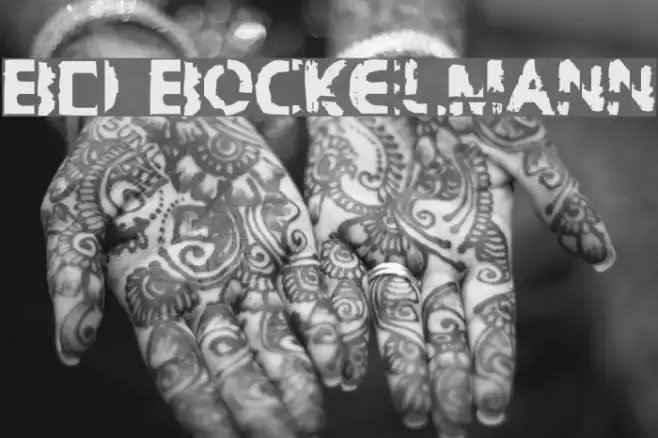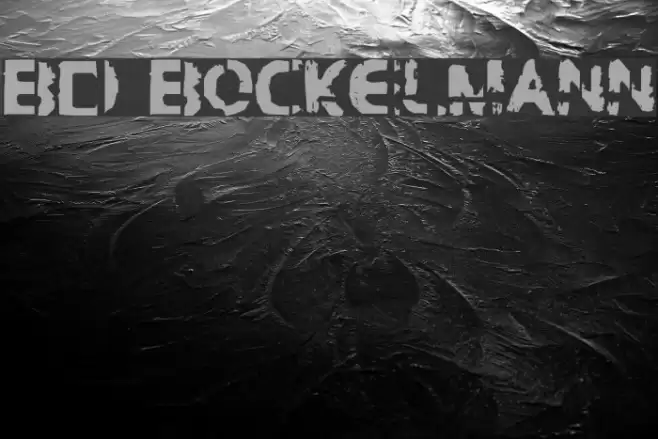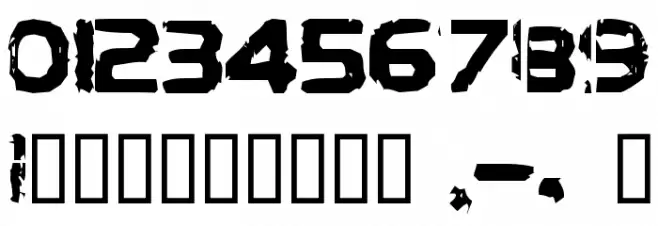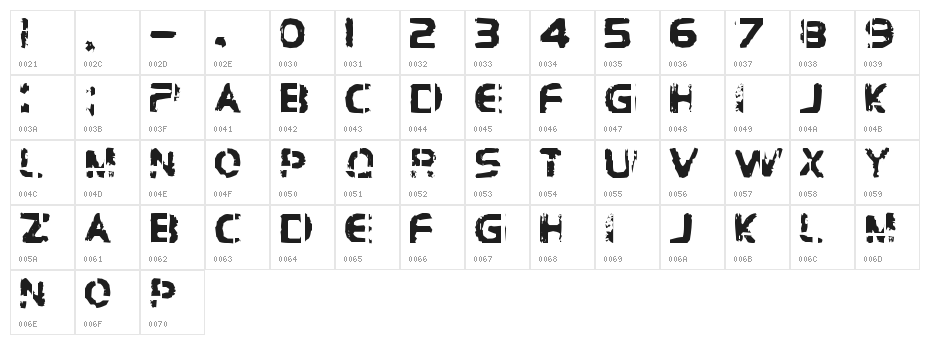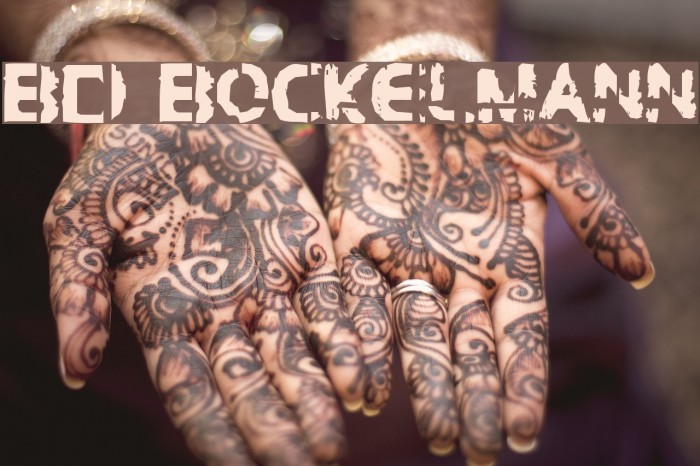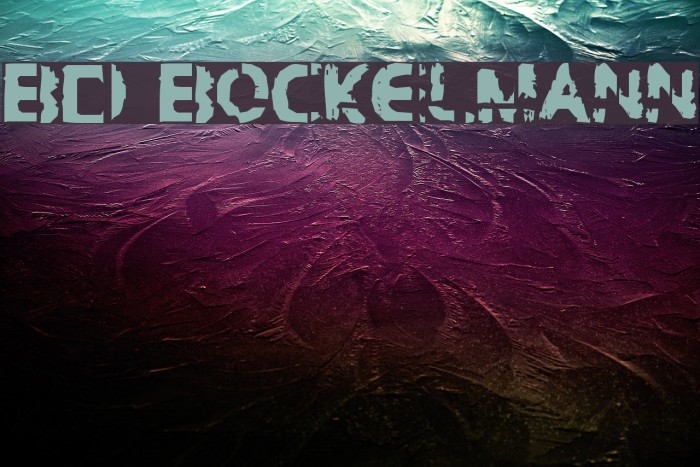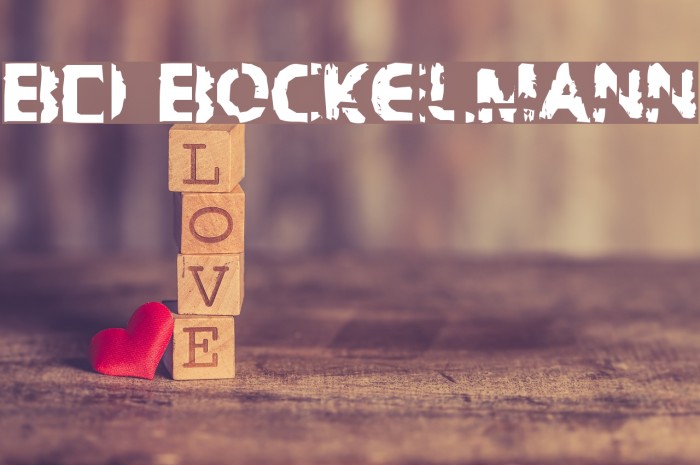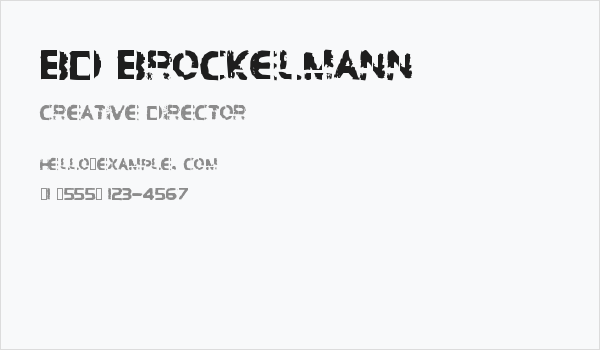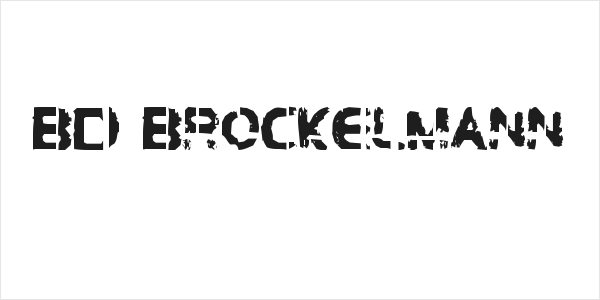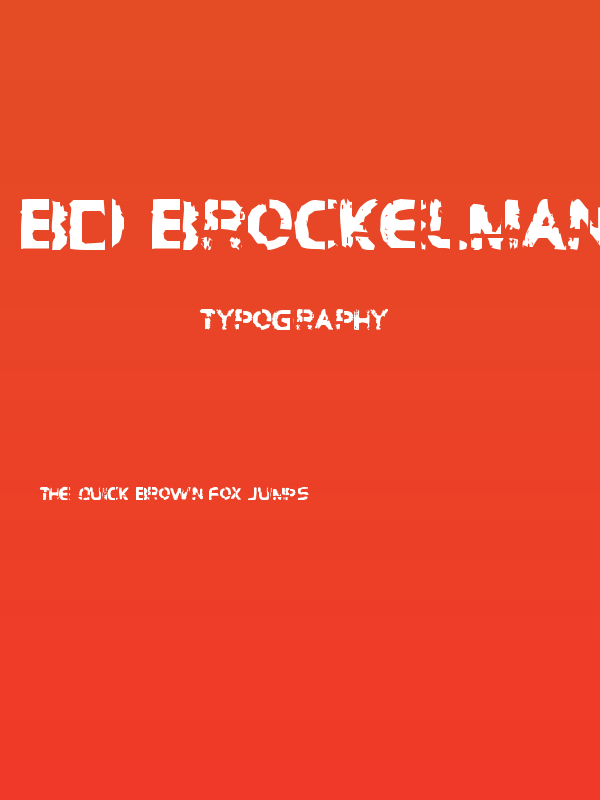
BD Brockelmann Font
BD Brockelmann Description
This font features a distressed, grunge style with a bold and rugged appearance. The characters are heavily textured, giving them a worn and weathered look. The uppercase letters are consistent in height, while the numbers and special characters maintain the same distressed aesthetic. The font's unique style makes it stand out, with each letter appearing as if it has been eroded or scratched. This design choice gives the font a dynamic and edgy feel, suitable for projects that require a strong visual impact.
A bold, distressed font with a rugged, grunge appearance from Distorted Eroded fonts.
- Proposed Projects: Ideal for album covers, posters, urban-themed designs, and branding that requires a gritty, impactful look.
- Overall Style: Grunge, Edgy